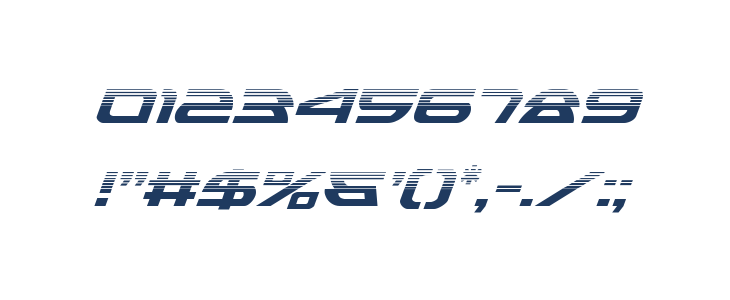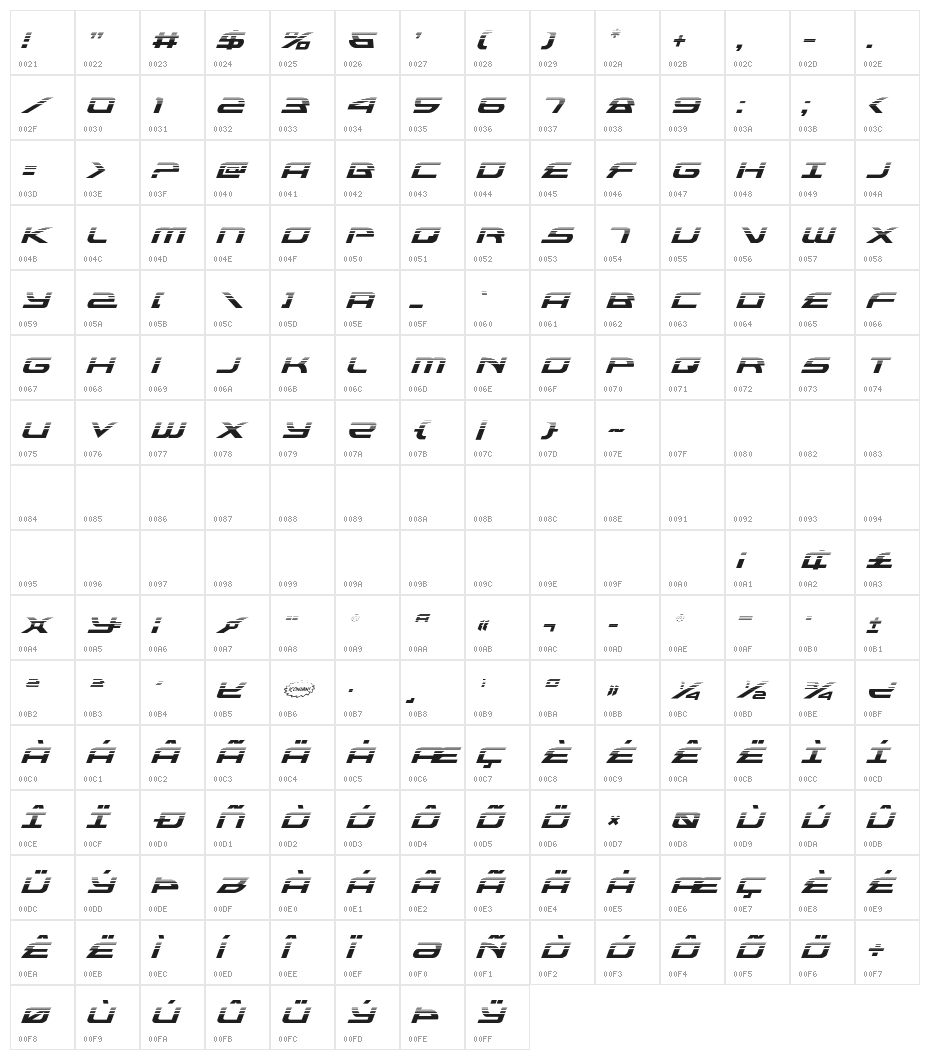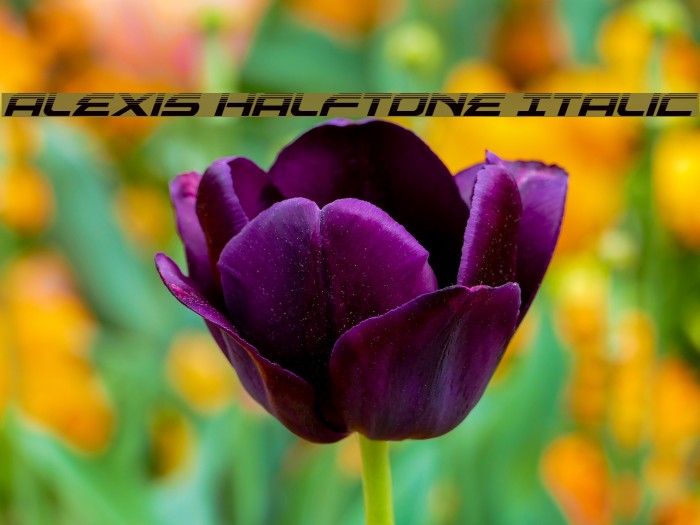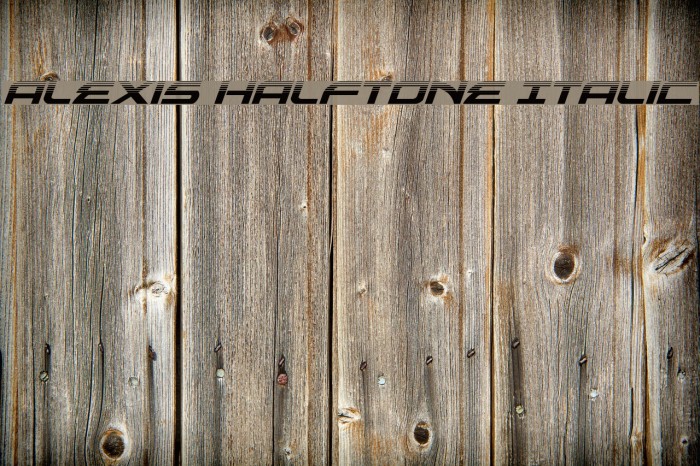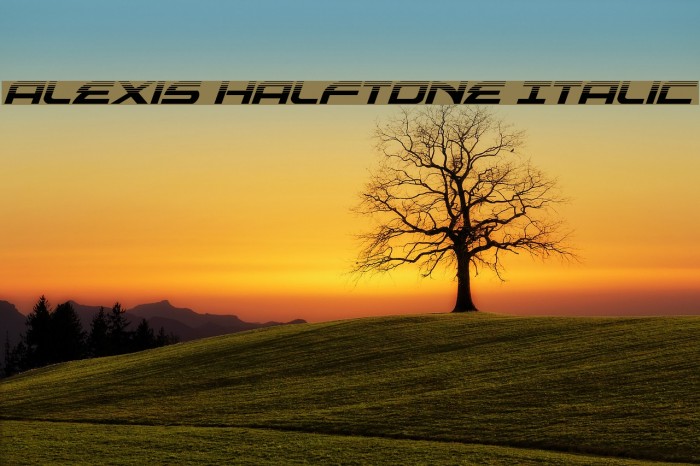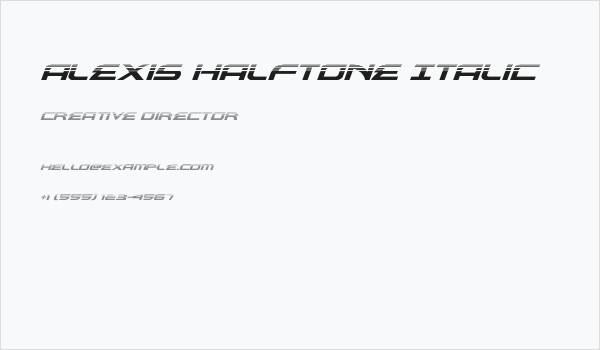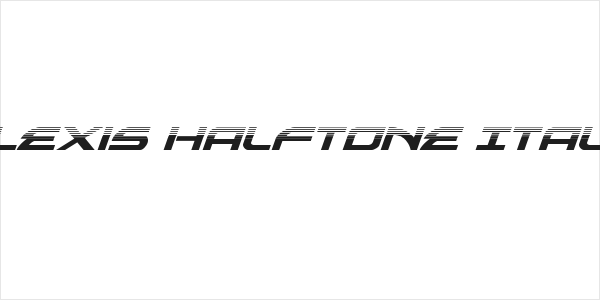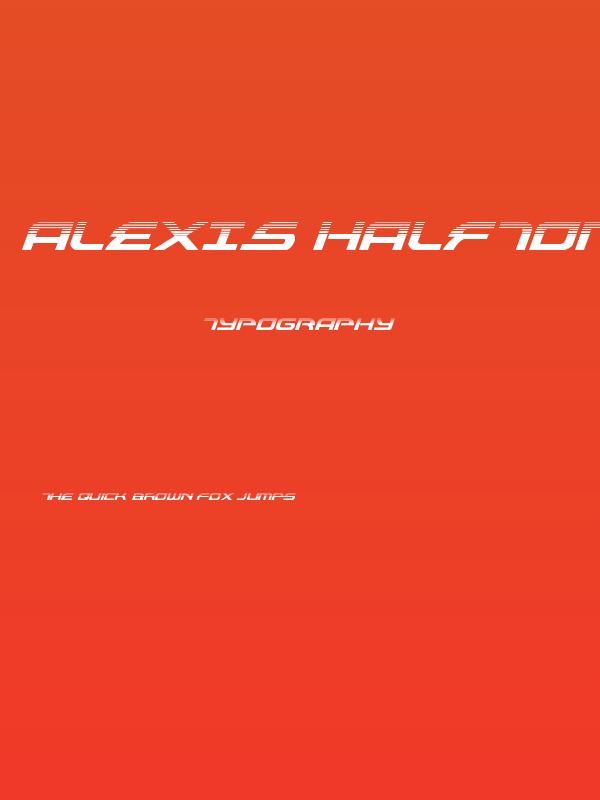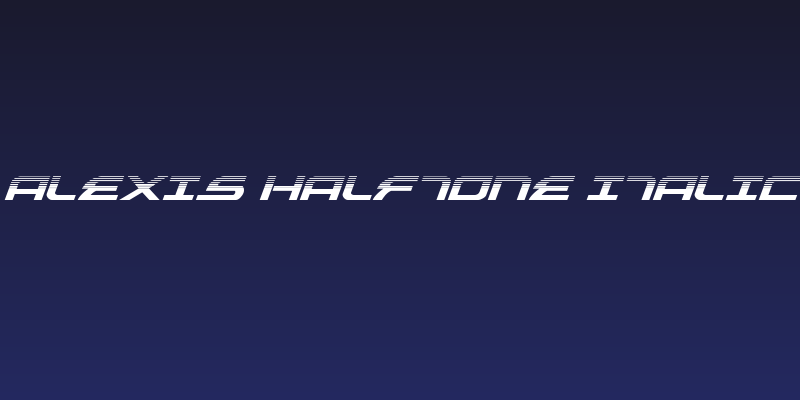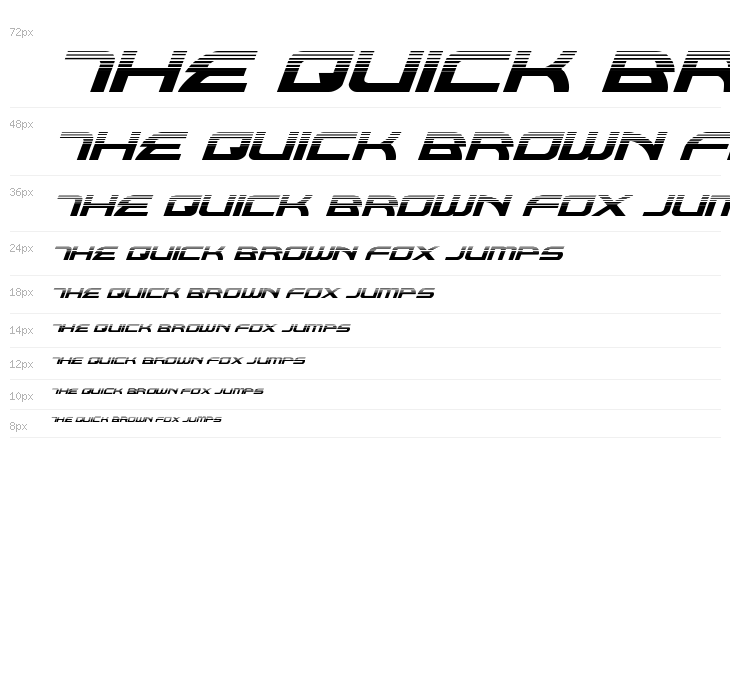
Alexis Halftone Italic Font
Alexis Halftone Italic Description
This font features a dynamic and futuristic design with a halftone effect that gives it a unique, modern appearance. The characters are italicized, adding a sense of motion and speed. The uppercase and lowercase letters maintain a consistent style, with sharp angles and clean lines. The numbers and special characters are equally stylized, making them suitable for a variety of creative applications. The halftone pattern within each character adds depth and texture, making it ideal for projects that require a bold and eye-catching typeface.
| Proposed Projects | Ideal for branding, posters, digital art, and any project needing a modern, tech-inspired look. |